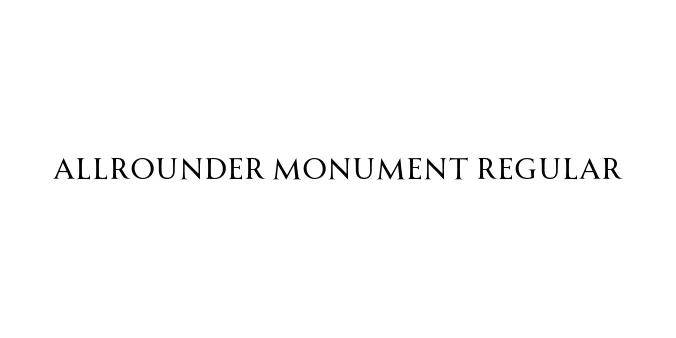
Allrounder Monument Regular
Designed by Moritz Kleinsorge
Allrounder Monument Regular is a sophisticated serif typeface inspired by the proportions and elegance of Roman stone carvings, specifically the Capitalis Monumentalis. Designed by Moritz Kleinsorge of Identity Letters, it represents a seamless bridge between classical antiquity and contemporary digital design. The Regular weight offers a balanced stroke contrast that maintains legibility while exuding a sense of authority and timelessness.
As part of the larger Allrounder typeface system, it was meticulously engineered to complement other families like Allrounder Grotesk and Allrounder Sans. This versatility makes it an excellent choice for editorial design, high-end branding, and cultural projects. Its design features sharp terminals and open counters, ensuring it performs exceptionally well in both display and text settings.
Allrounder Monument Regular Best Uses
Ideal for headlines and pull quotes in magazines or high-end publications.
Perfect for luxury brands looking for a timeless, authoritative visual language.
Excellent for museum exhibits or architectural installations due to its Roman roots.
Creates a strong and sophisticated first impression for high-end digital platforms.